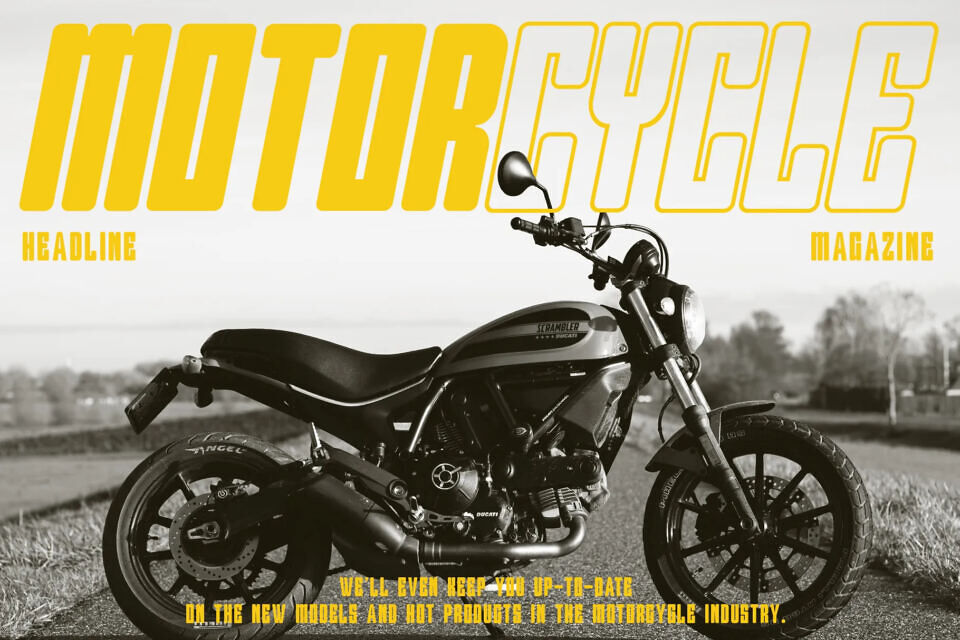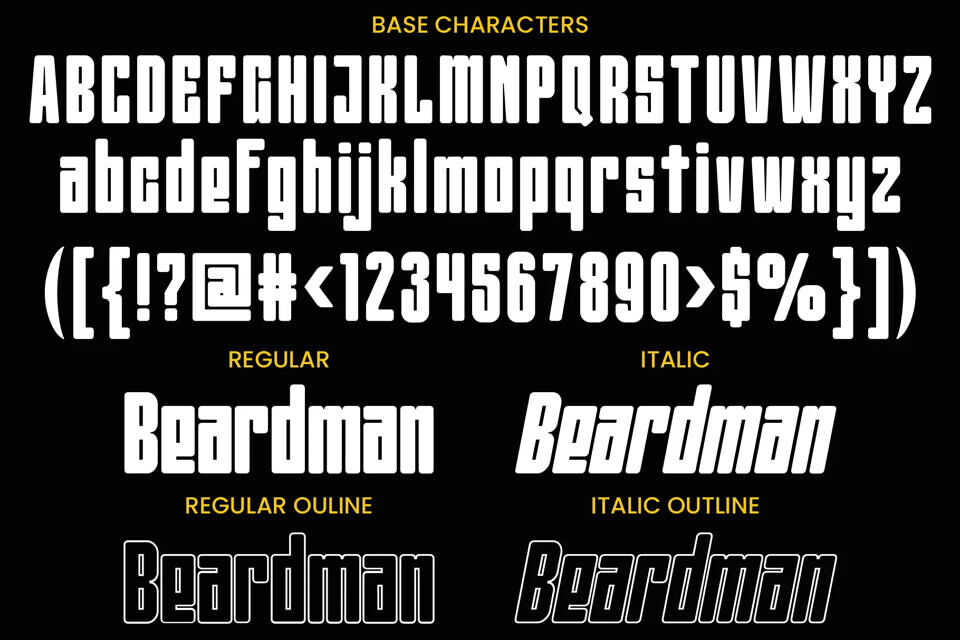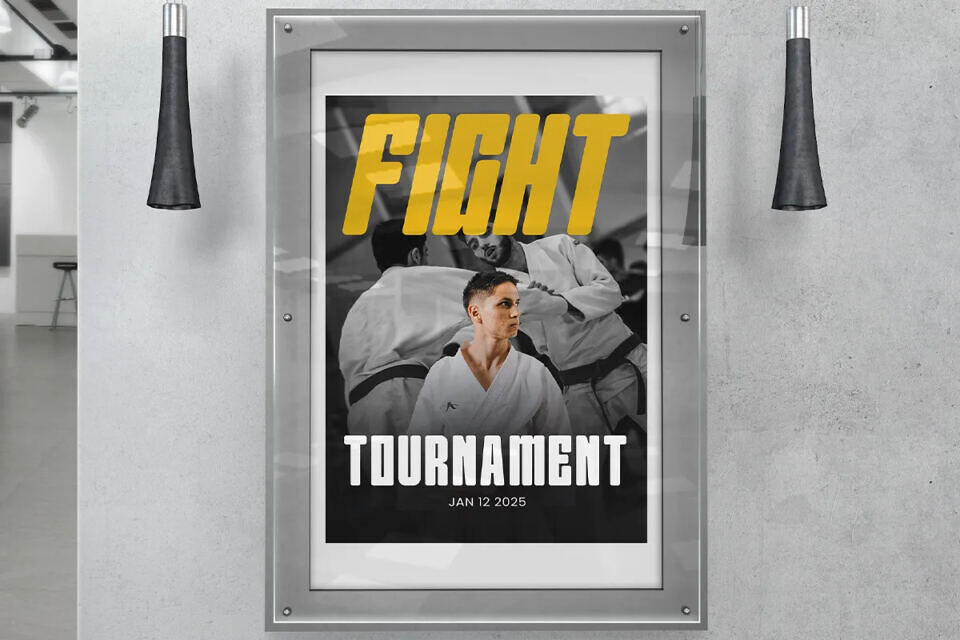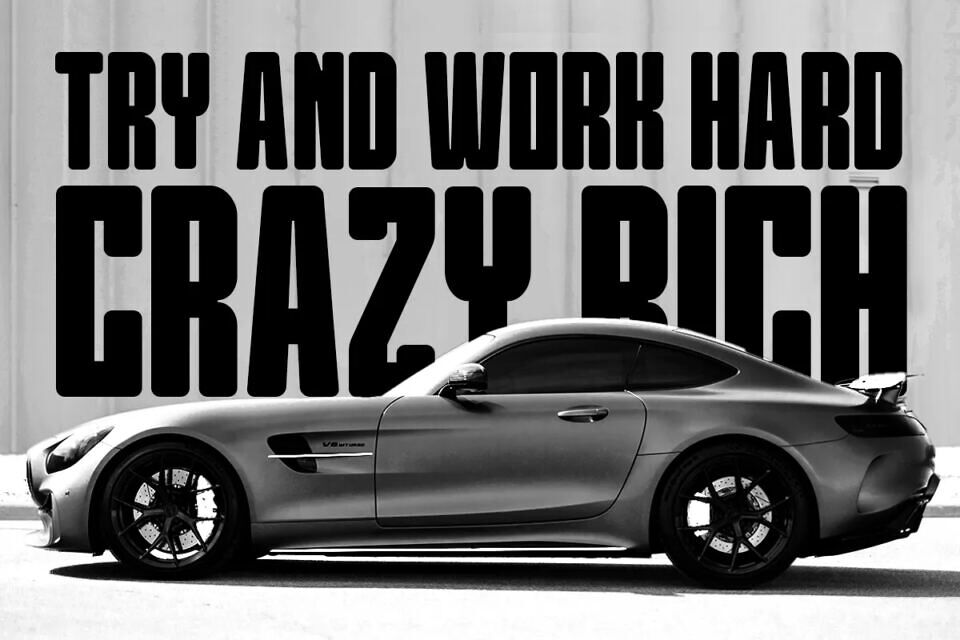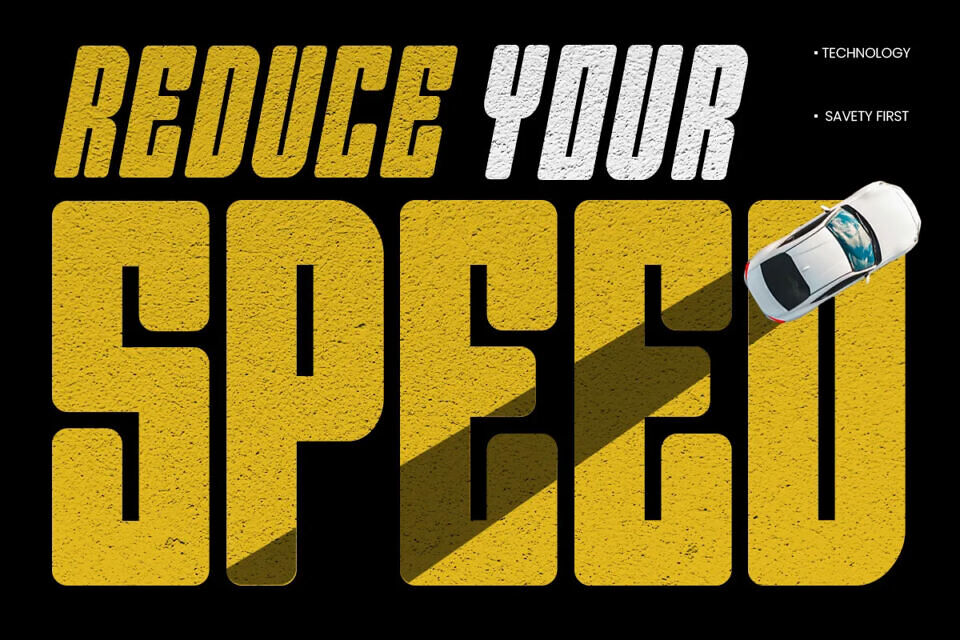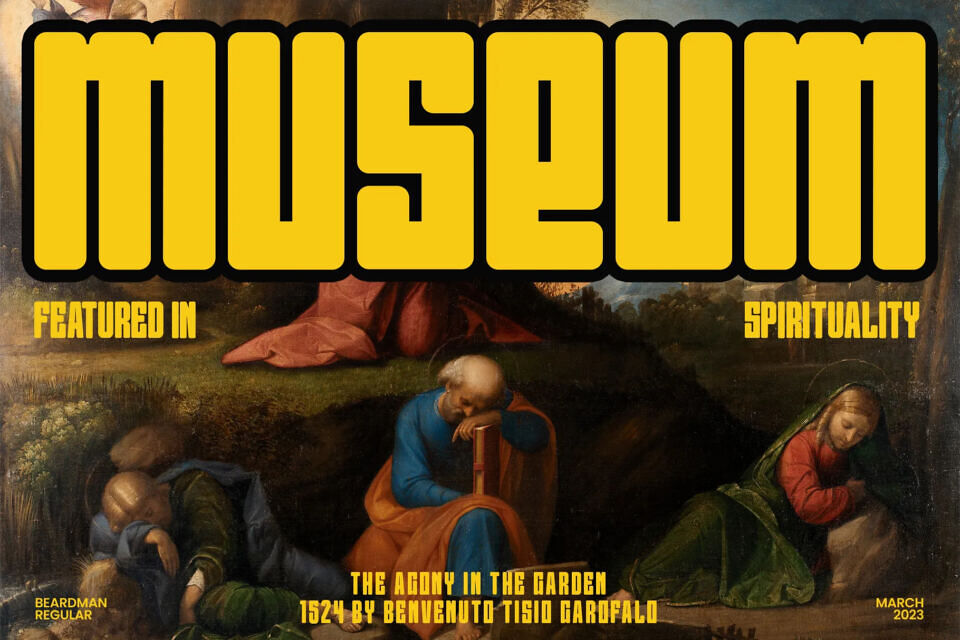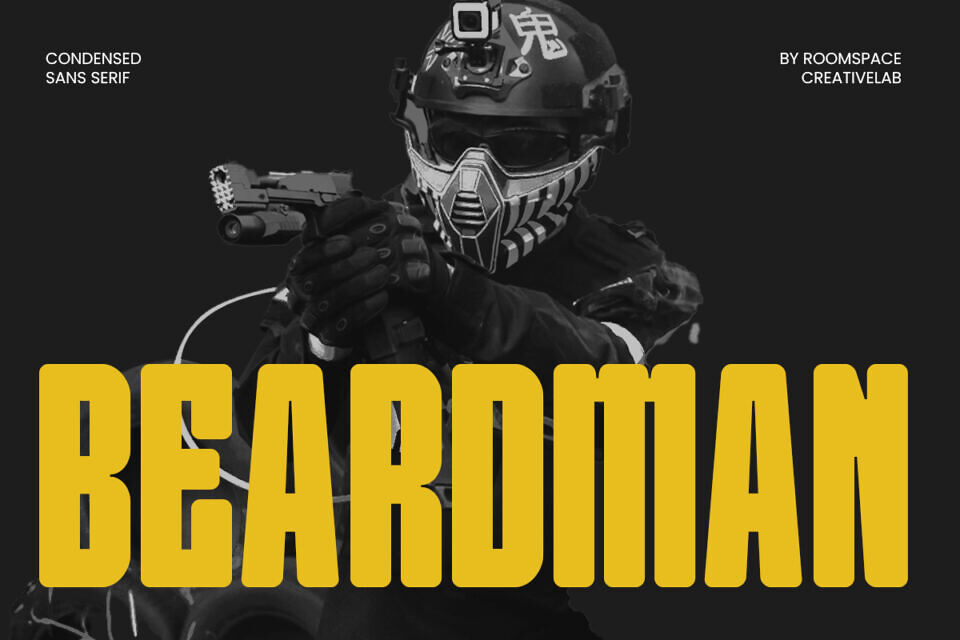
Beardman Font
Beardman is a bold, retro-inspired display font designed to command attention with strength and confidence. Featuring condensed letterforms and a robust structure, it’s ideal for impactful headlines and masculine branding. Every character is meticulously crafted for balance and precision, ensuring sharp, professional results.
Available in Regular, Slant, and Outline styles, Beardman offers creative flexibility for diverse layouts. Perfect for logos, posters, sports branding, magazine titles, and packaging, this versatile typeface infuses every design with bold authority and vintage charm. Make your message stand tall with Beardman.